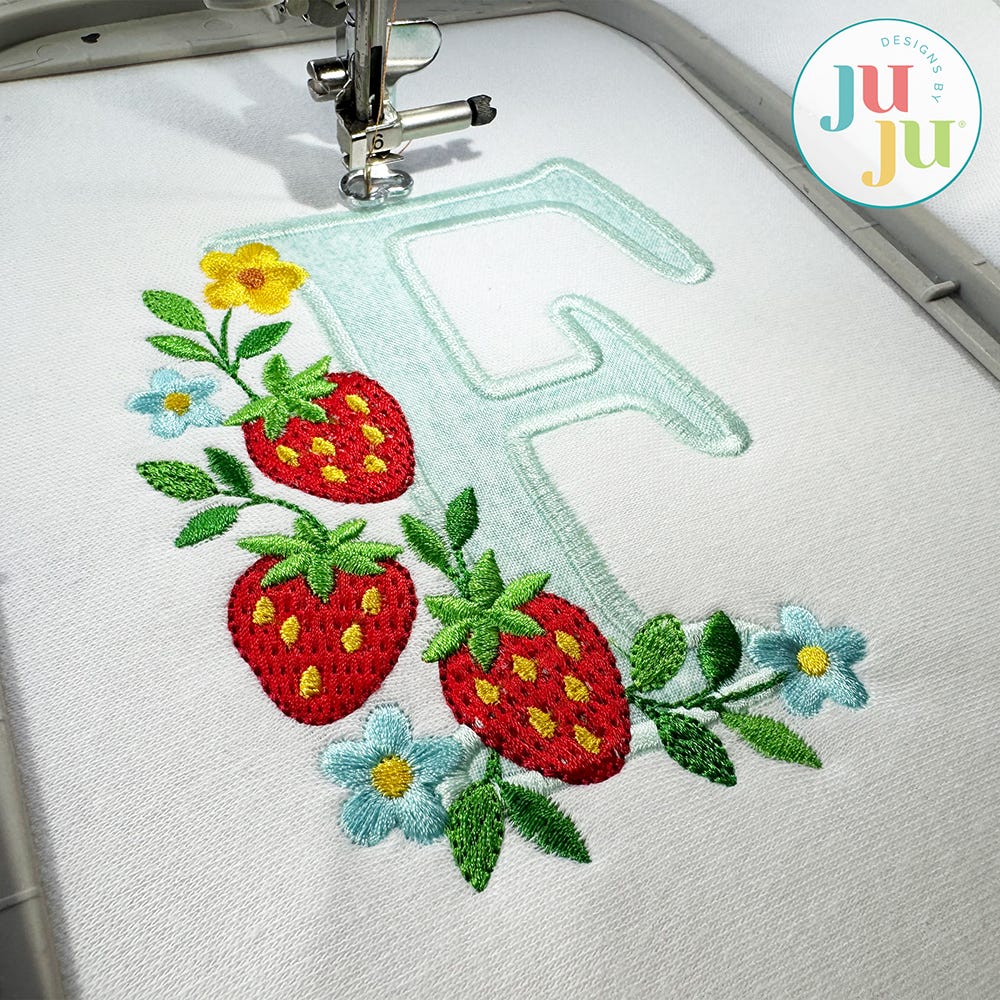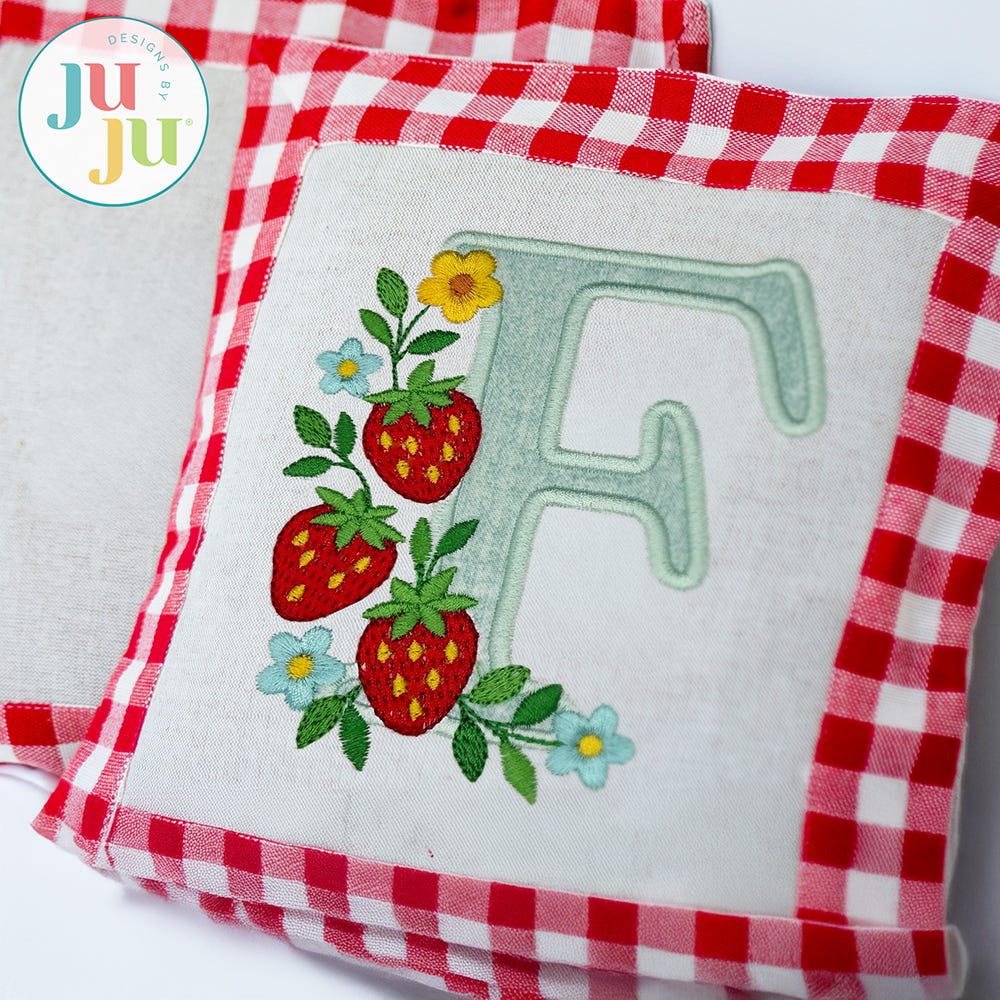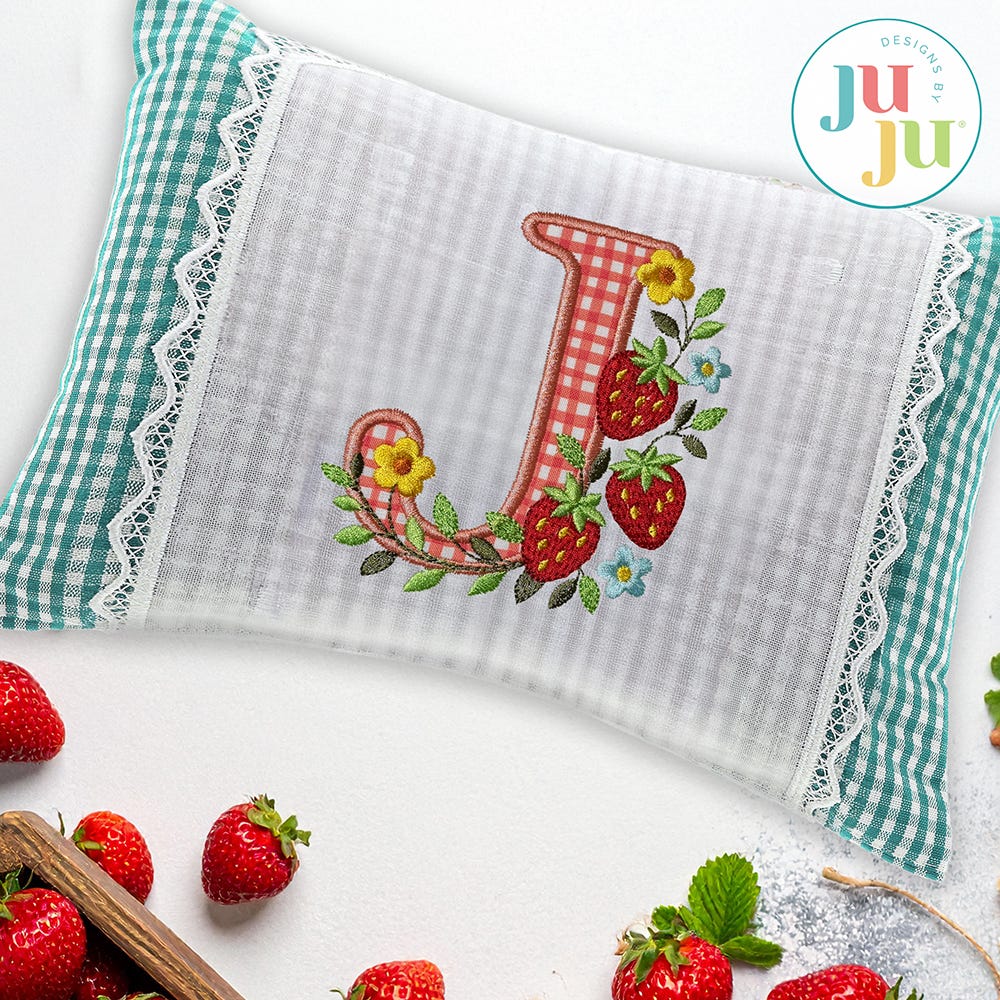
Strawberry Satin Stitch Applique Monogram Embroidery Font
Stitch something sweet with our Strawberry Applique Monogram. You will receive all 26 uppercase applique letters, each embellished with embroidered strawberries and florals as shown.
This font is intended as a single-initial monogram. Design height is based on the overall file size, not the size of the actual letter. Letters may not be in scale with each other, therefore it is not suitable for creating a name or word.